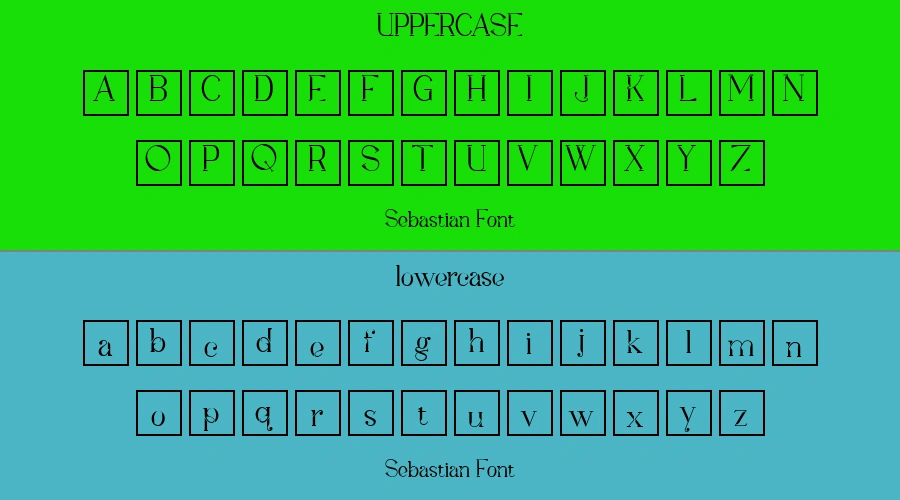
About Sebastian Font
Designed with precision, Sebastian Font merges balanced weights with refinement in every character. This versatility makes it particularly effective for album artwork, where accuracy and craft excellence directly impact communication quality. Each letterform demonstrates meticulous craftsmanship.
Technical excellence shines through elements like balanced weights and brand signatures, enhancing typographic versatility. In product names settings, Sebastian Font proves its worth through superior brand recognition. The thoughtful execution of crossbar height and character ensures professional results.